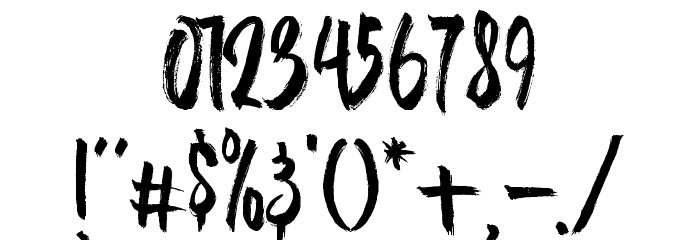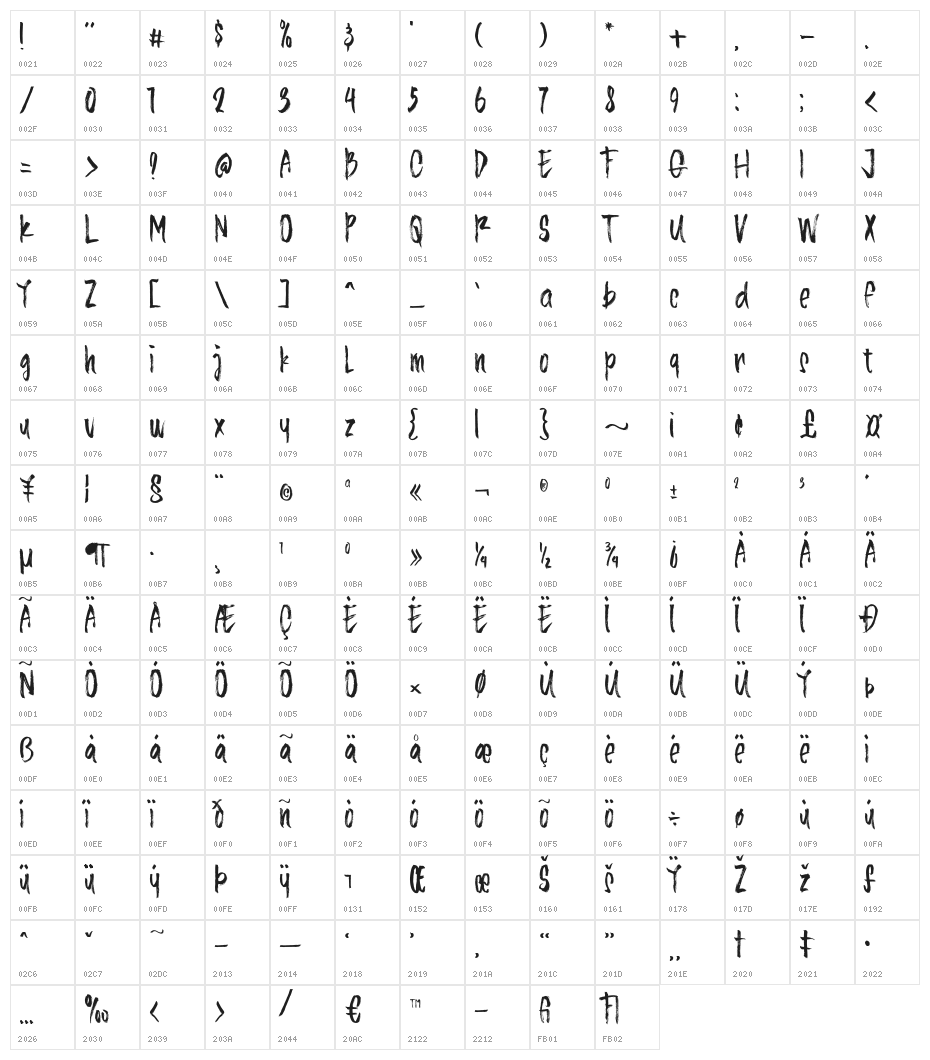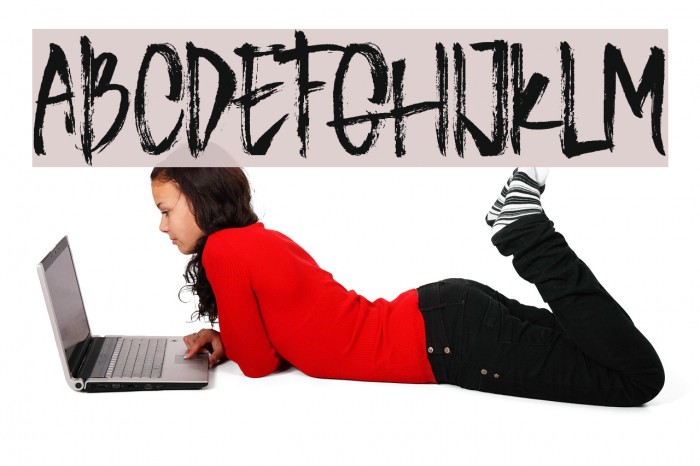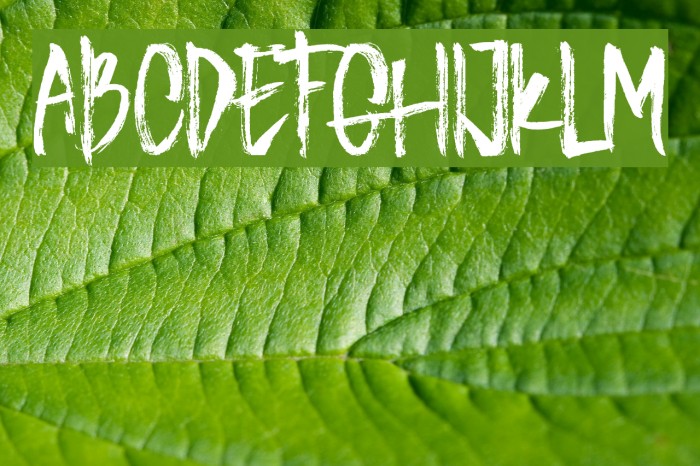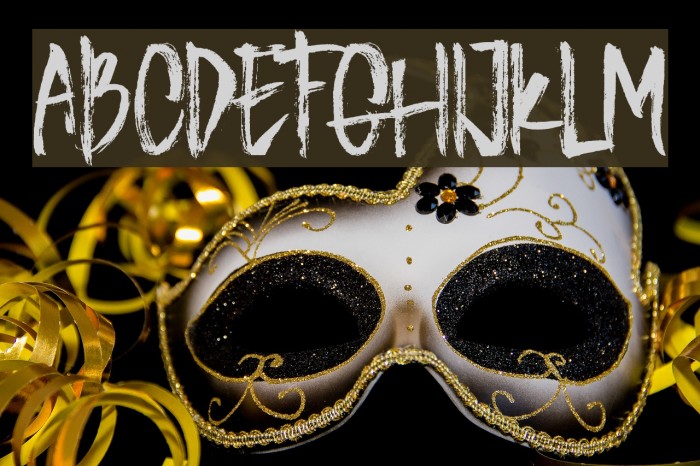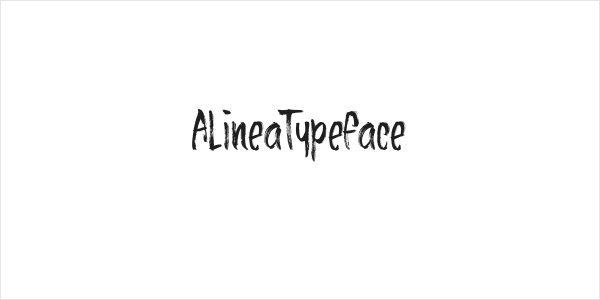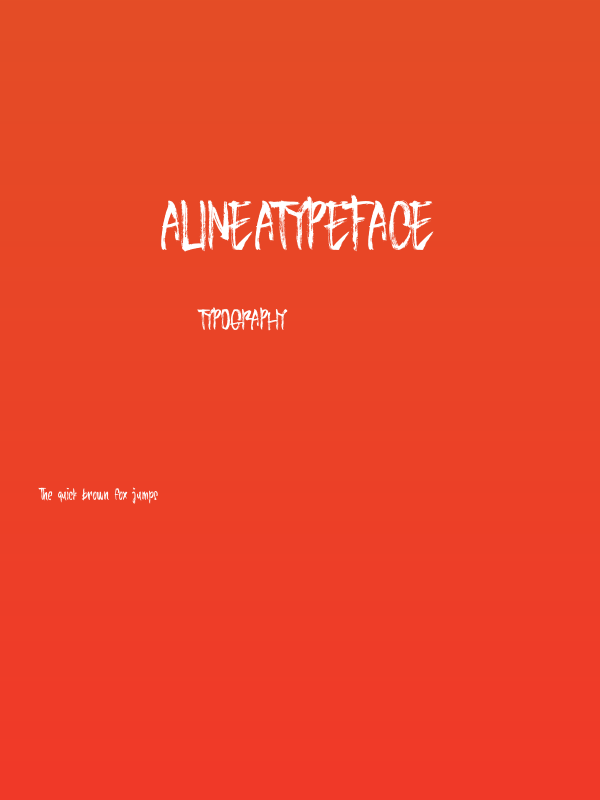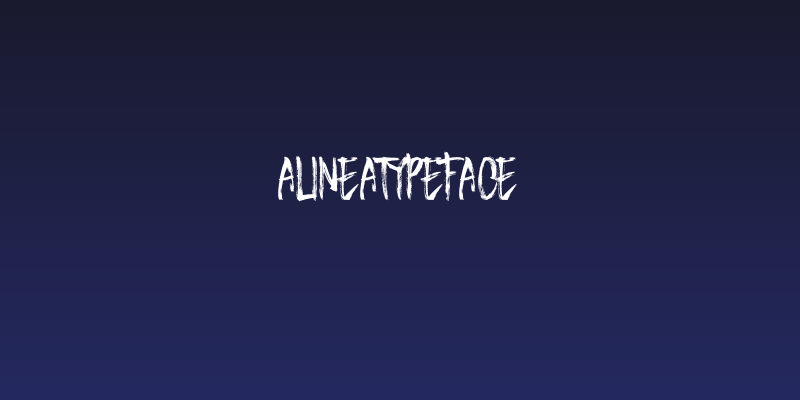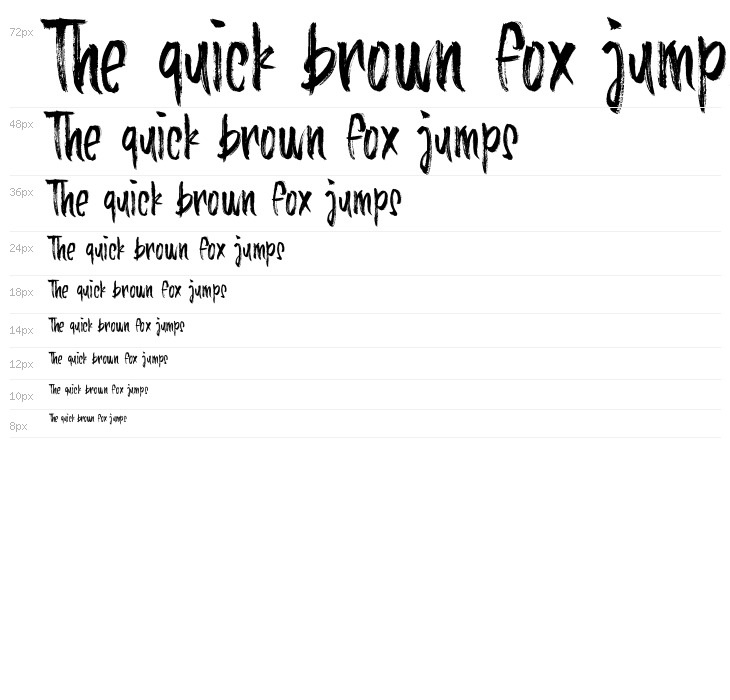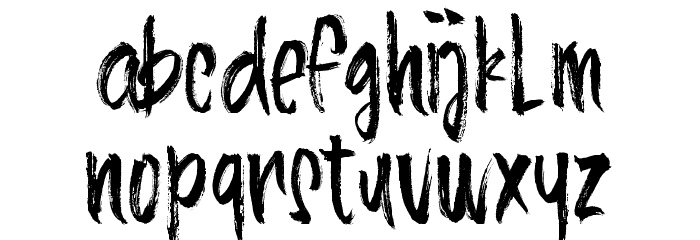
AlineaTypeface Font
AlineaTypeface Description
This typeface features a bold, expressive brush style that mimics the texture and flow of hand-painted strokes. The letters are irregular and dynamic, with varying thicknesses that give a sense of movement and energy. The uppercase and lowercase letters maintain a consistent style, while the numerals and special characters complement the overall aesthetic. The rough edges and organic shapes add a raw, artistic feel, making it suitable for creative and bold design projects.
| Proposed Projects | Ideal for projects that require a creative and artistic touch, such as posters, album covers, branding for artistic ventures, or any design that aims to capture attention with a bold statement. |